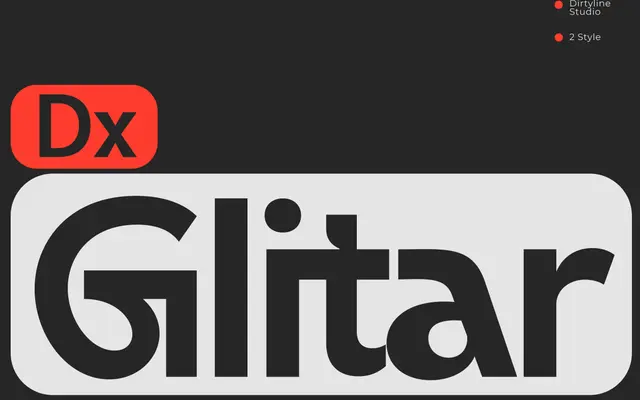
A single-weight geometric sans from Dirty Line Studio, positioned for display and logo use.
A geometric sans offered in one weight, aimed at display and branding contexts. The licensing tiers suggest it is intended for logo, web and mobile applications rather than extended text setting. Limited style range restricts its versatility.
Listed under sans-serif on the foundry site; the name and minimal page content suggest a clean geometric or constructed sans form, typical of the foundry's display-oriented sans offerings.